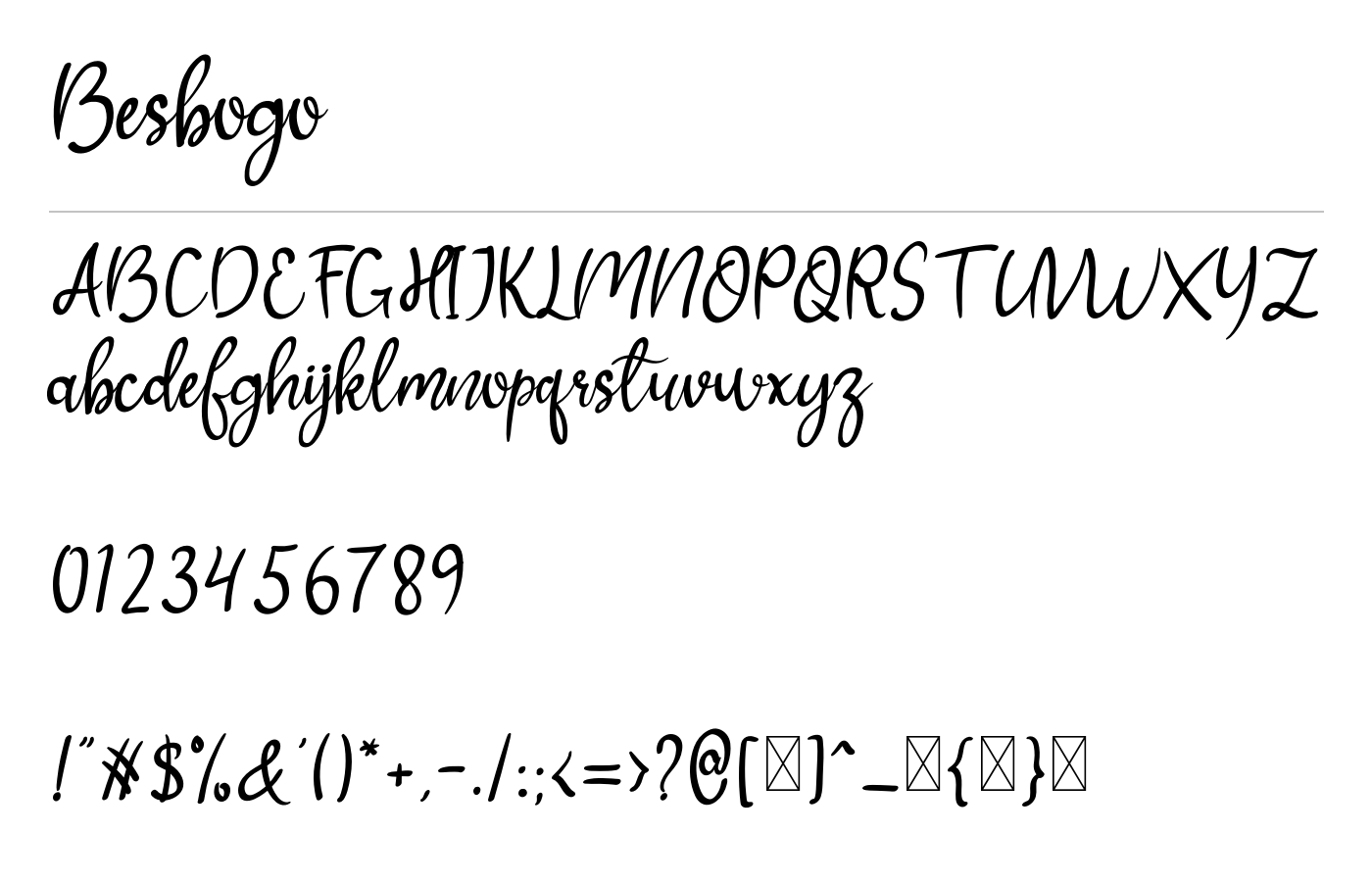
Besbogo is an elegant script font with a smooth and flowing style that mimics natural handwriting. Its slender strokes and balanced contrast give it a graceful, modern feel, making it perfect for invitations, branding, and creative projects where a personal, stylish touch is desired. This font works especially well for designs that seek warmth and sophistication without losing readability.
Besbogo Font